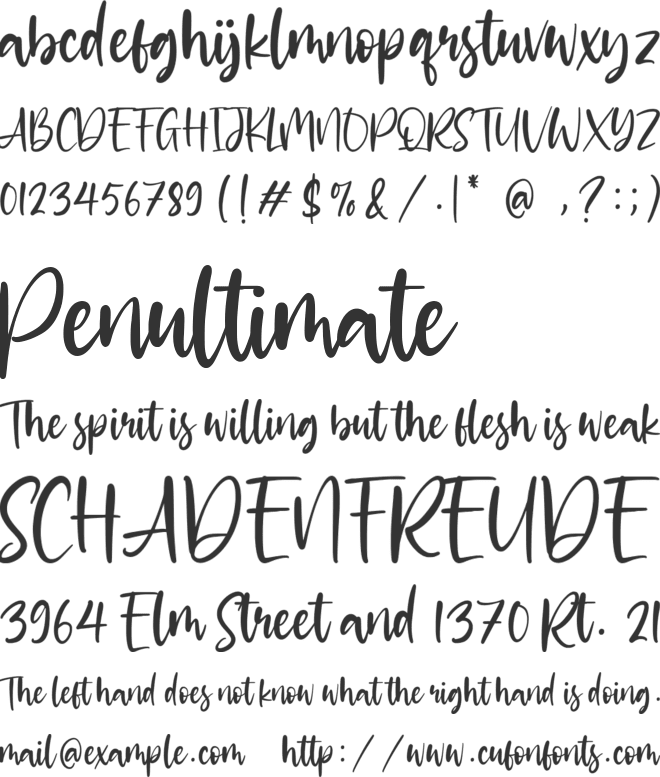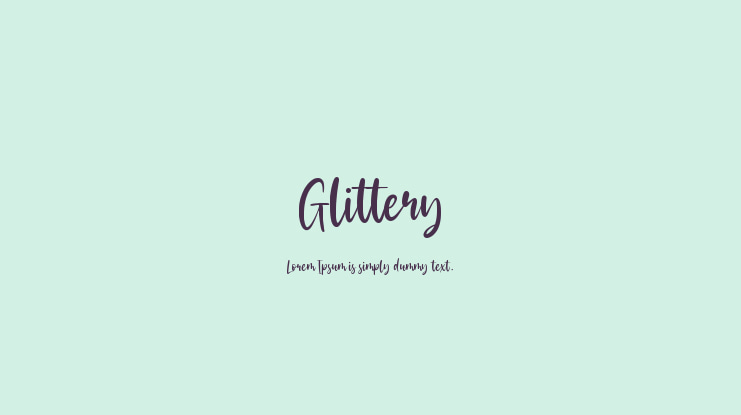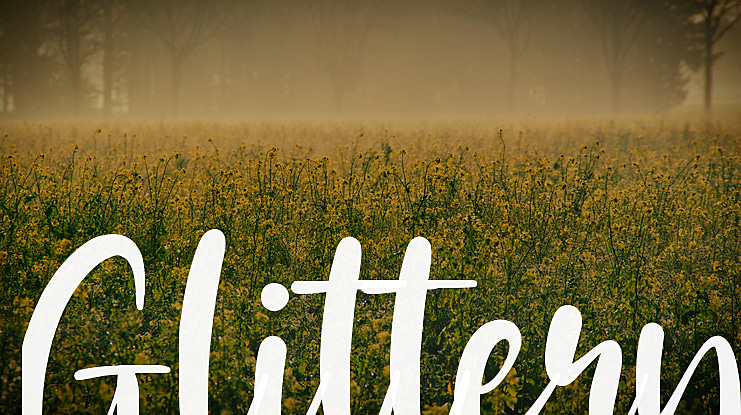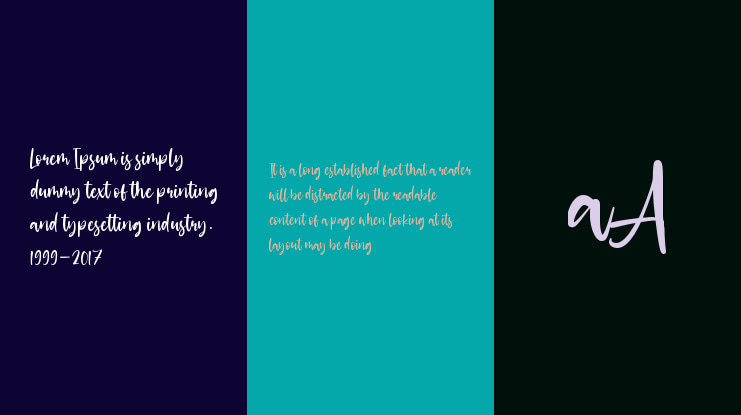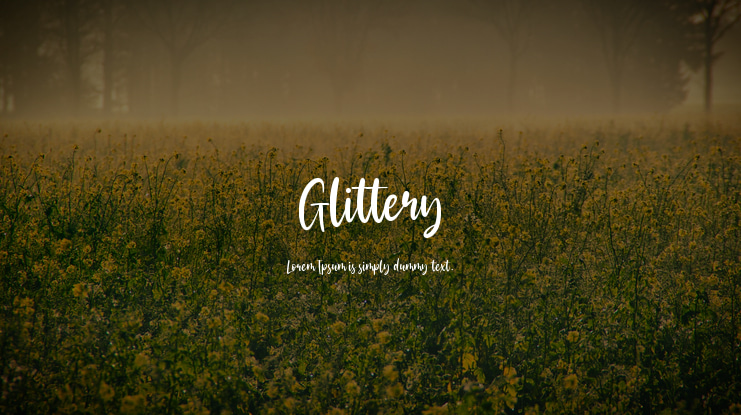
Glittery is a Modern Handwritten Font. This sweet font has nice smooth lines.
Glittery is perfect for product packaging, branding project, megazine, social media, wedding, or just used to express words above the background.